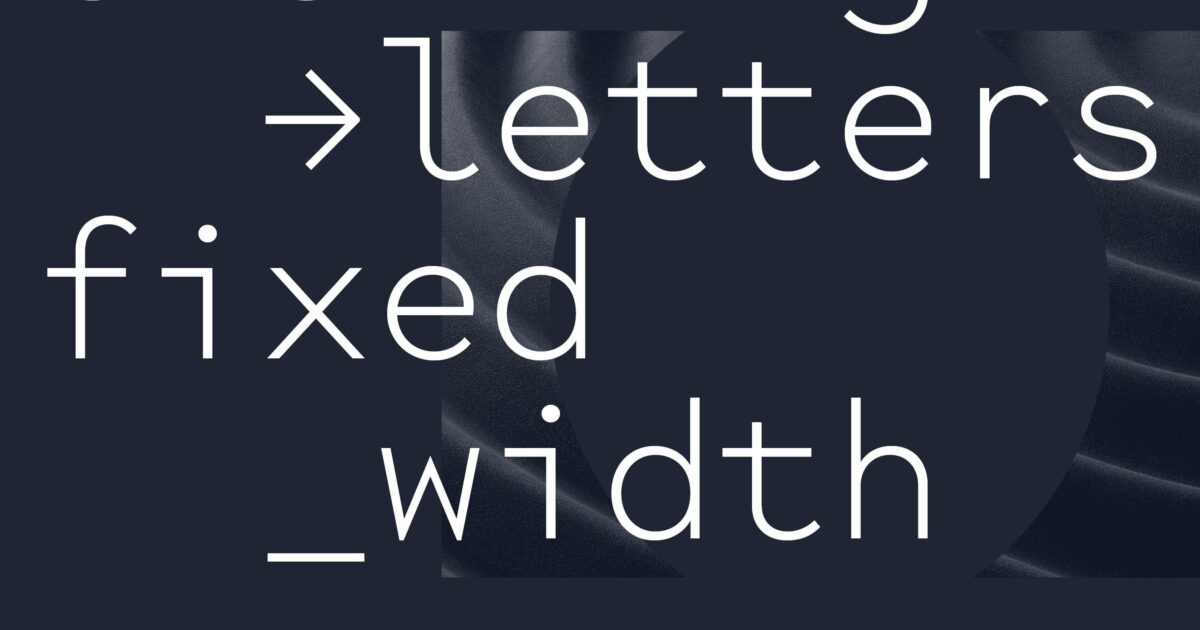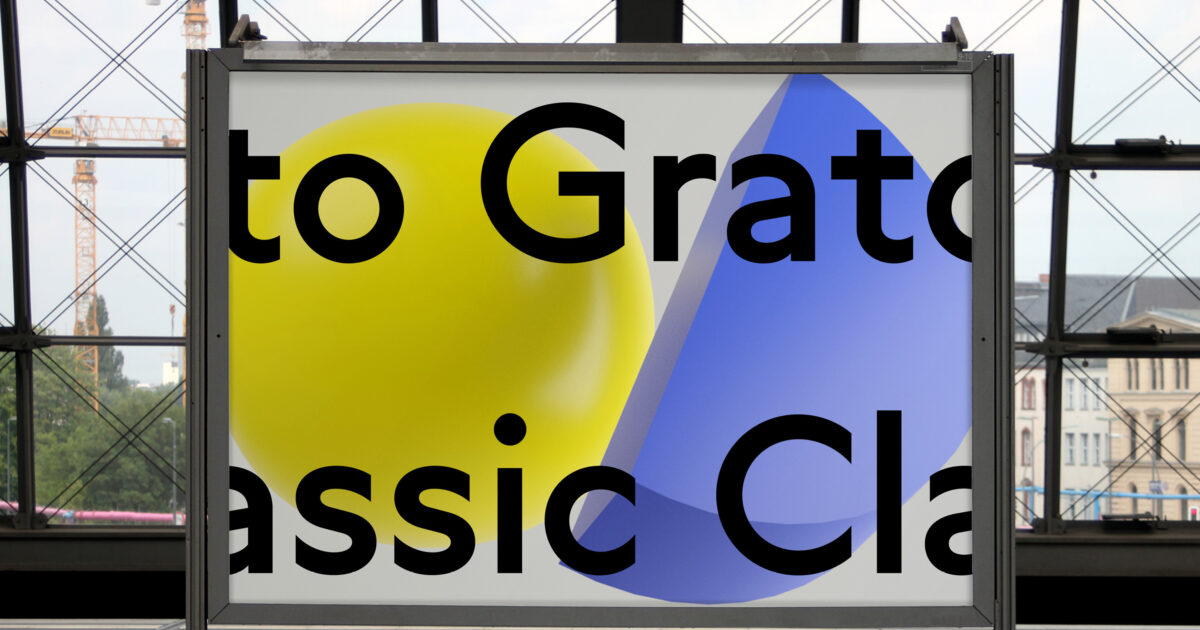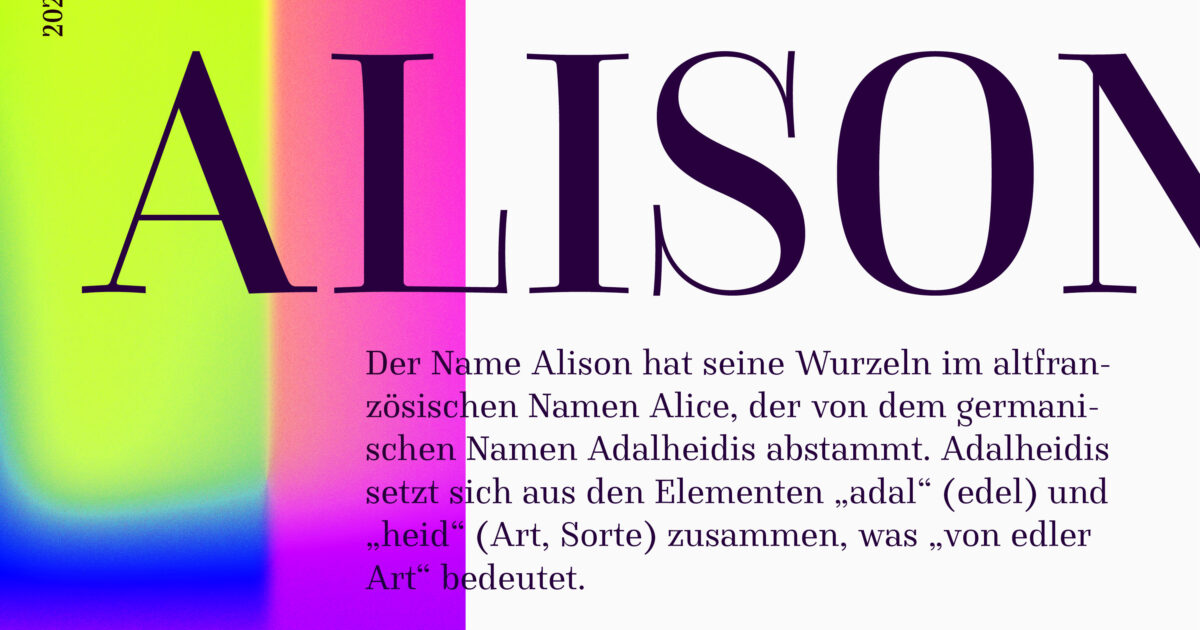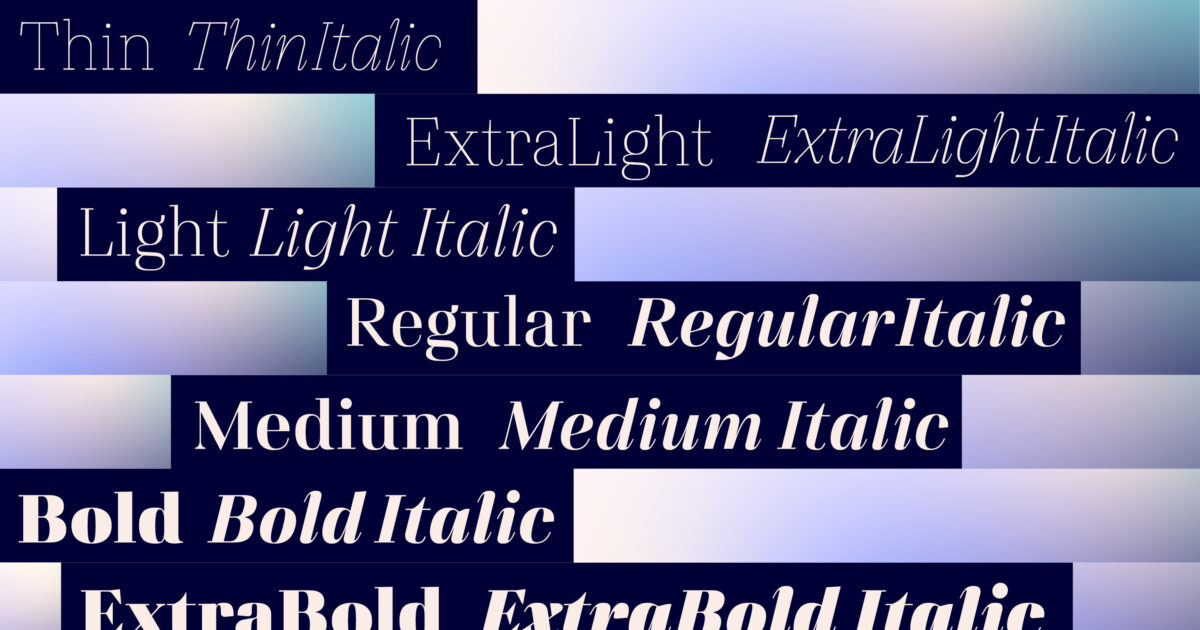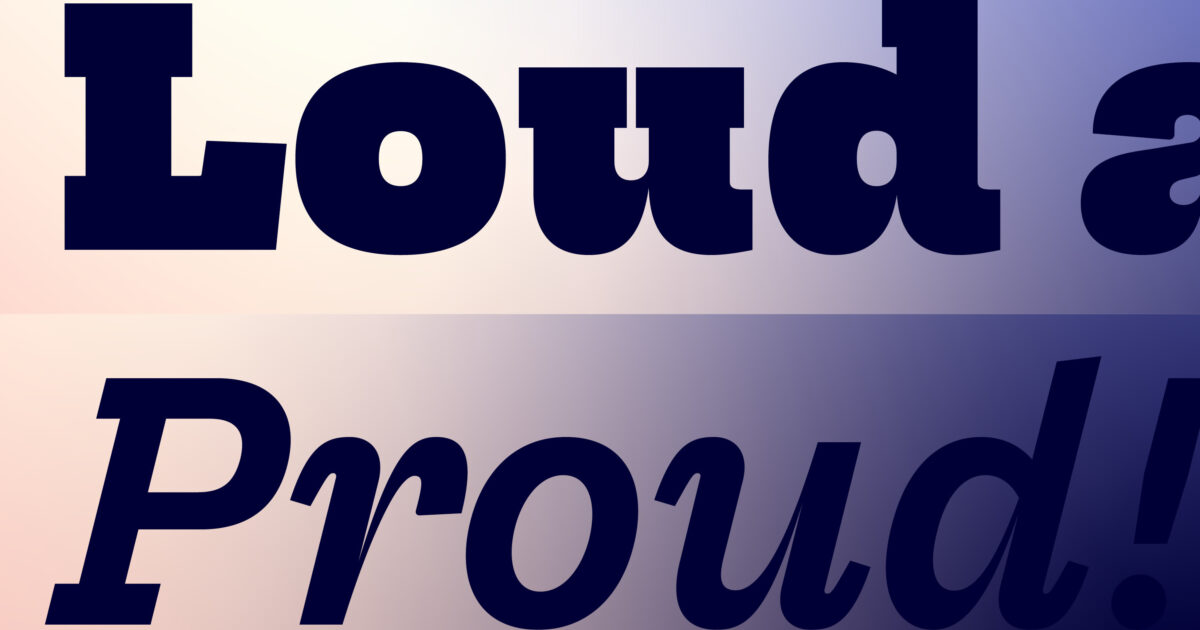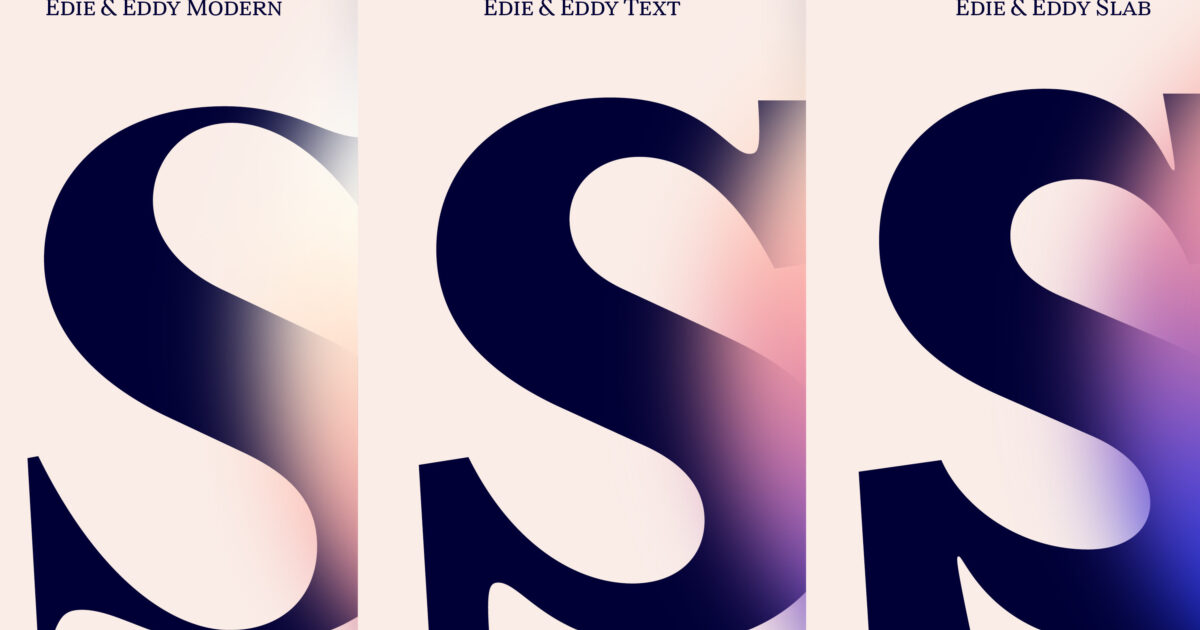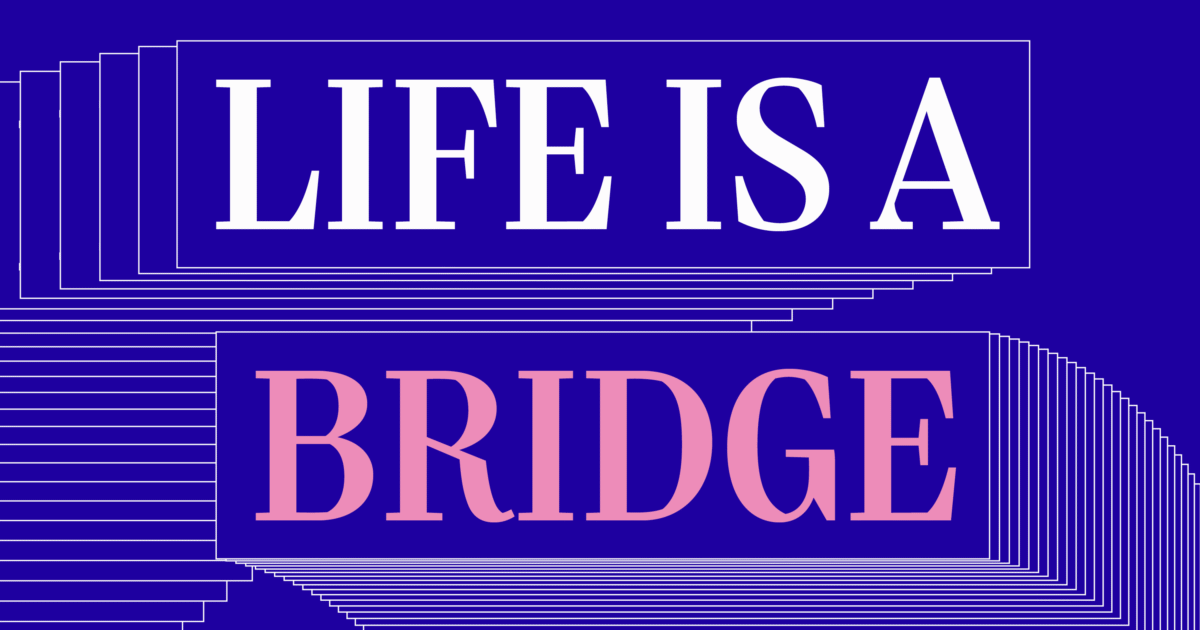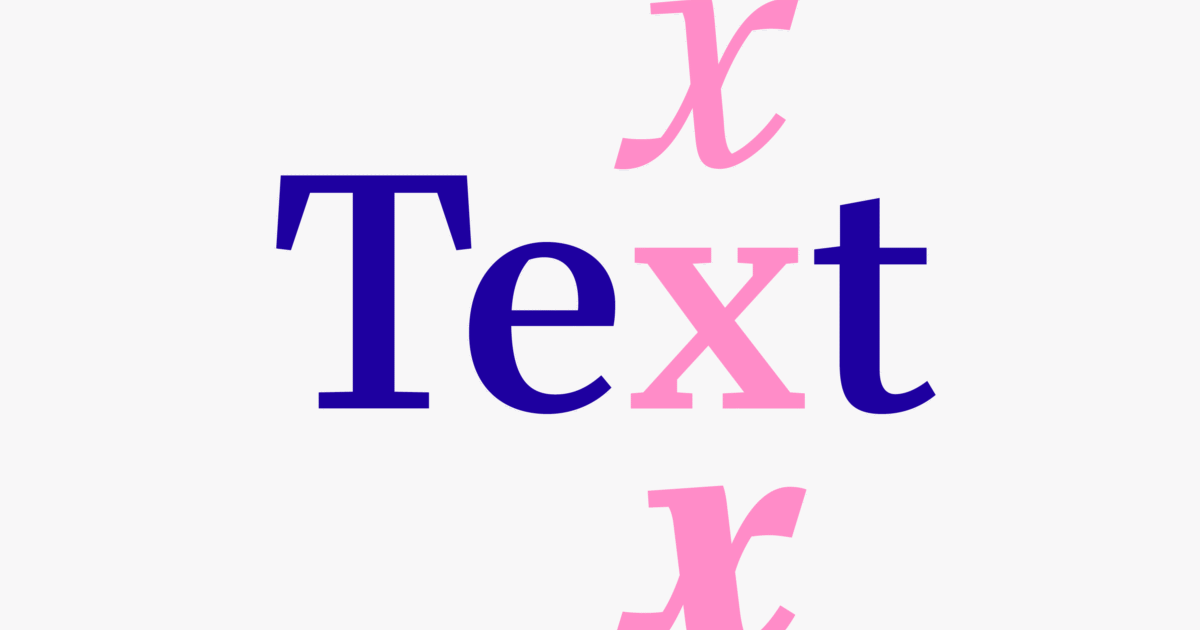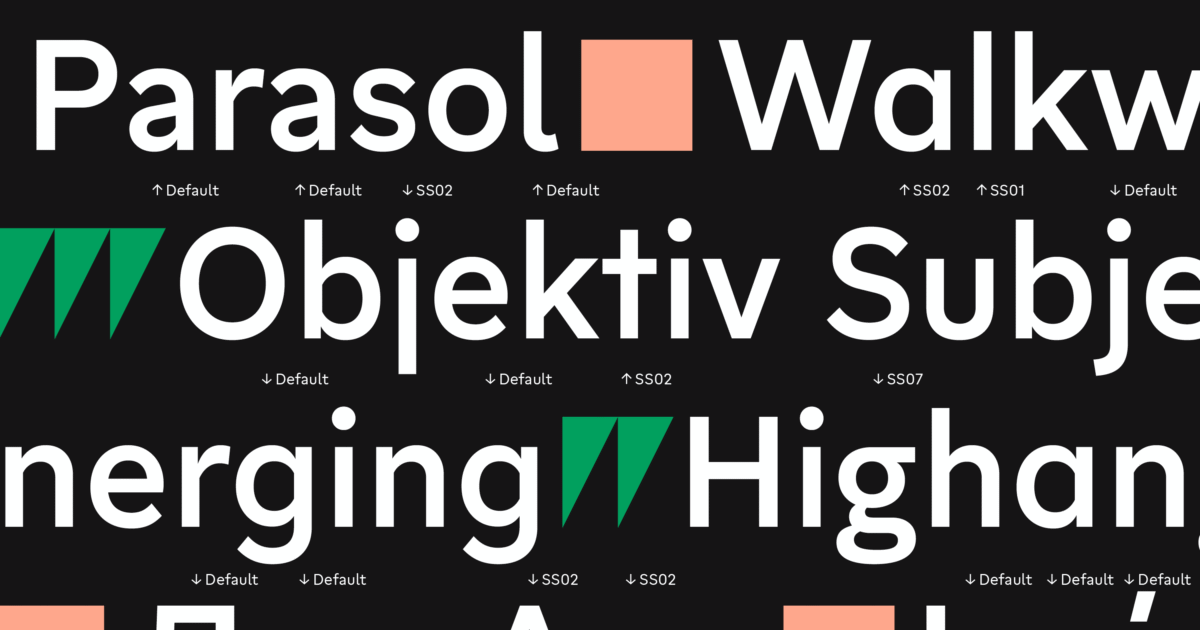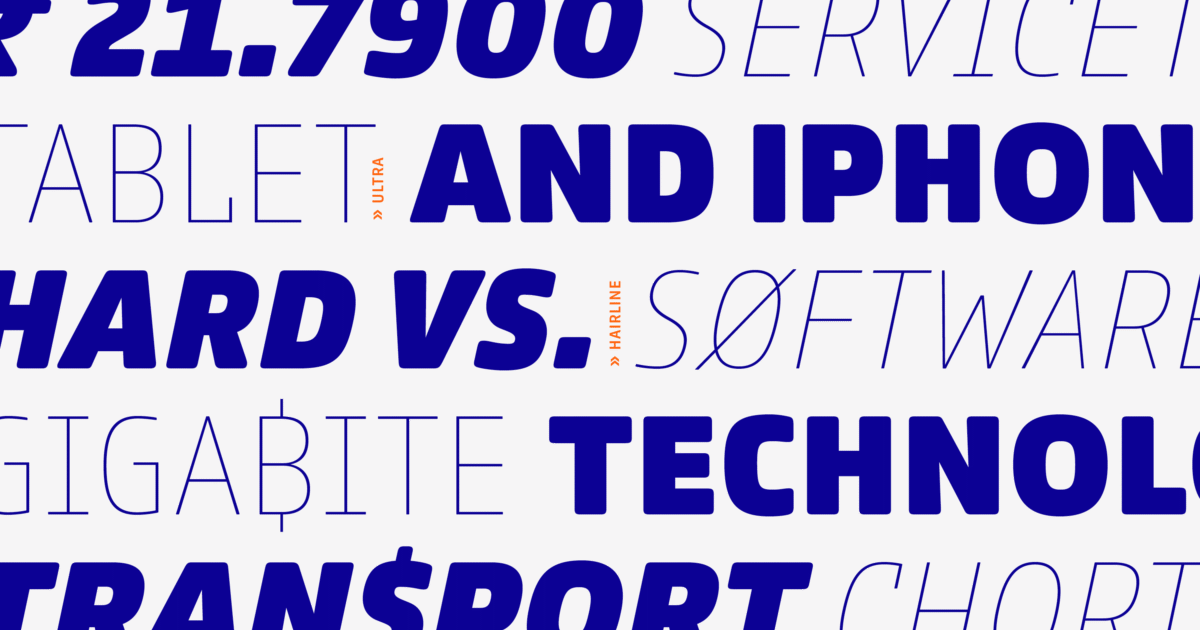
TypeMates
TypeMates is a type foundry based in Germany, founded in 2015 by a group of passionate type designers. They focus on creating both custom typefaces and a diverse collection of fonts, emphasizing collaboration and high-quality design.
alison head
Extravagant, highly-contrasted and finely detailed, Alison Head finds her own way to redefine the Didone
alison text
How can Alison Head ’s high-contrast extravagance make a legible text typeface? Distinctive and dependable, Alison Text is the answer.
altona
With proud roots in Hamburg, Altona is a bold, distinctive and cosmopolitan display typeface inspired by the original street signs of the Altona district.
bridge head
With three different widths in six weights, Bridge Head has the perfect voice for stunning titles
bridge text
The drummer in a band of confident, edgy editorial typefaces Bridge Text brings rhythm and clarity to longform reading
cera brush
Cera Brush is a hand-crafted, brush-made geometric font with high-res details
cera pro
Cera Pro is distilled from elementary shapes and brings simplicity, elegance and a certain warmth wherever a contemporary geometric typeface is needed
cera round
As powerful as any other member of the collection, Cera Round combines warmth with elegance and its support for Cyrillic and Greek makes it a reliable and…
cera stencil
Cera Stencil has two goals: to elevate stencil typefaces beyond cargo and military clichés, and to provide serious simplicity in multiple languages.
comspot
Comspot is a rounded, typewriter-flavoured font family with a human touch
conto
Conto is a minimalist and clear typeface in multiple weights and widths for smooth corporate typography.
conto slab
Conto Slab is a distinct and distinctive Slab Serif typeface in eight weights
dockland
With its crisp texture, Dockland livens up the genre of blocky, traditional bracketed slab serifs
elma
Elma is a system of two fixed-width typeface families — Elma Mono and Elma Trio — that operate at the intersection of pragmatism and mischief
gratimo classic
Gratimo Classic is a powerful workhorse in the Geometric Suite that combines elementary shapes and precise construction
gratimo grotesk
Gratimo Grotesk is an utilitarian family purpose-built for everyday use, a powerful workhorse in the Geometric Suite that combines elementary shapes and…
grato classic
Grato Classic is the humanist voice of the Geometric Suite
grato grotesk
Grato Grotesk is the modernist of the Geometric Suite